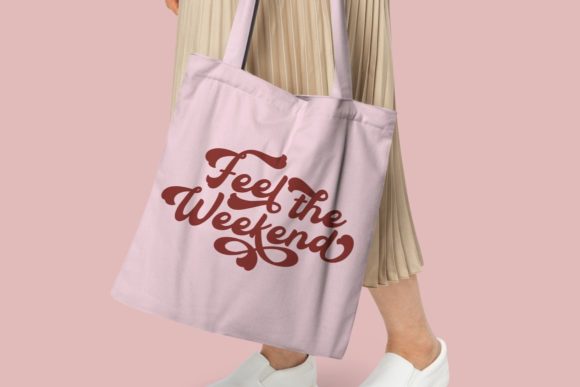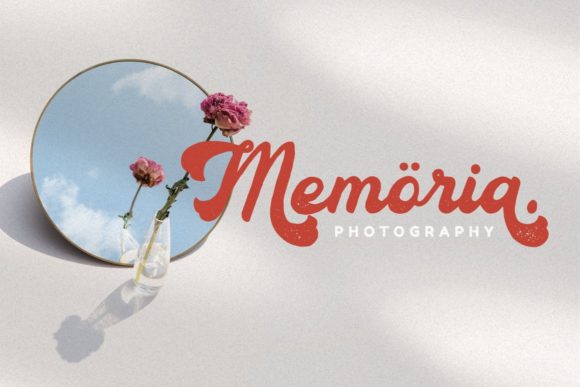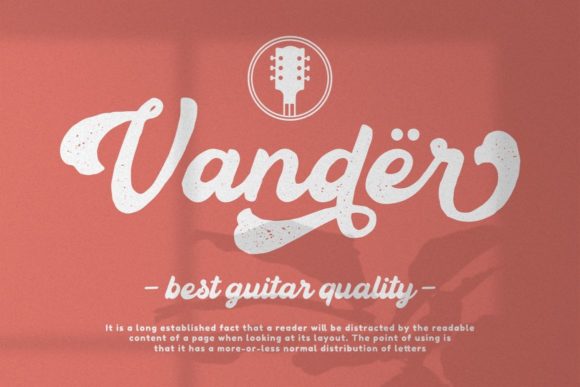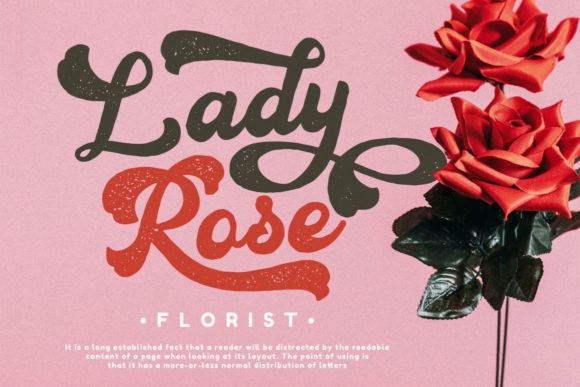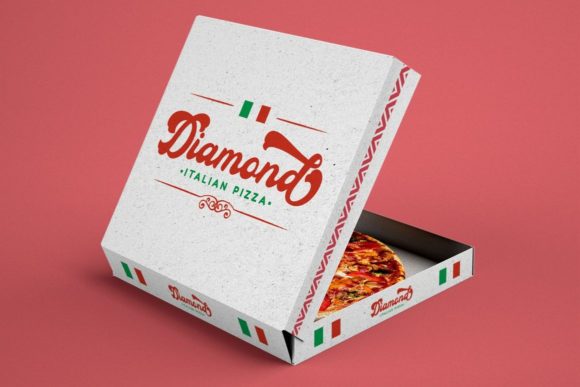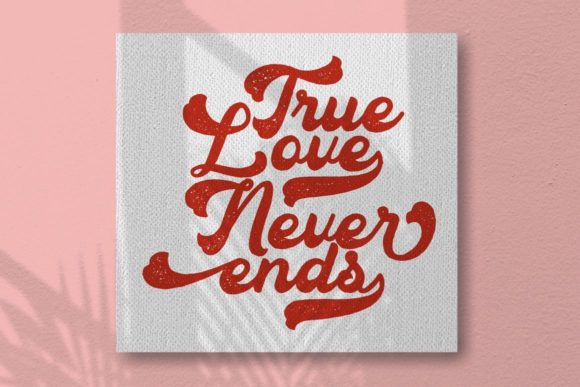
Aesthetic Vintage Font: Elevate Your Designs with a Touch of Retro Luxury
In the world of design, fonts play a crucial role in conveying the tone and aesthetic of a project. For those seeking to add a touch of retro luxury to their work, Aesthetic Vintage Font is an excellent choice. This bold vintage script font is perfect for designers and crafters looking to infuse their projects with a sense of nostalgia and sophistication.
What is Aesthetic Vintage Font?
Aesthetic Vintage Font is a carefully crafted font that embodies the essence of vintage design. With its bold and elegant script, this font is ideal for projects that require a touch of luxury and refinement. The font comes in two versions: a clean version and a rough version, allowing designers to choose the one that best suits their needs.
Key Features of Aesthetic Vintage Font
- Bold Vintage Script: Aesthetic Vintage Font boasts a bold and eye-catching script that is sure to make a statement in any design.
- Clean and Rough Versions: The font comes in two versions, allowing designers to choose the one that best fits their project’s tone and style.
- Highly Versatile: Aesthetic Vintage Font can be used in a wide range of projects, from logos and branding to posters, packaging, book covers, and more.
- Retro/Vintage and Luxury Themes: This font is perfect for projects that require a touch of retro luxury, making it ideal for designers and crafters who specialize in vintage-inspired designs.
Use Cases for Aesthetic Vintage Font
Aesthetic Vintage Font is a highly versatile font that can be used in various projects, including:
- Logos and Branding: Create a lasting impression with a bold and elegant logo that showcases your brand’s personality.
- Posters and Flyers: Add a touch of retro luxury to your promotional materials and make them stand out.
- Packaging Design: Elevate your product packaging with a sophisticated font that exudes luxury and refinement.
- Book Covers: Create a captivating book cover that showcases the tone and aesthetic of your publication.
- Clothes/Apparel: Add a touch of vintage charm to your clothing and apparel designs.
- Quotes and Titles: Use Aesthetic Vintage Font to add a touch of elegance and sophistication to your quotes and titles.
Why Choose Aesthetic Vintage Font?
With so many fonts available, why choose Aesthetic Vintage Font? Here are a few reasons why this font stands out:
- Unique and Eye-Catching: Aesthetic Vintage Font is a bold and eye-catching font that is sure to make a statement in any design.
- High-Quality Design: This font is carefully crafted to ensure that it meets the highest standards of design and typography.
- Versatile and Adaptable: Aesthetic Vintage Font can be used in a wide range of projects and applications.